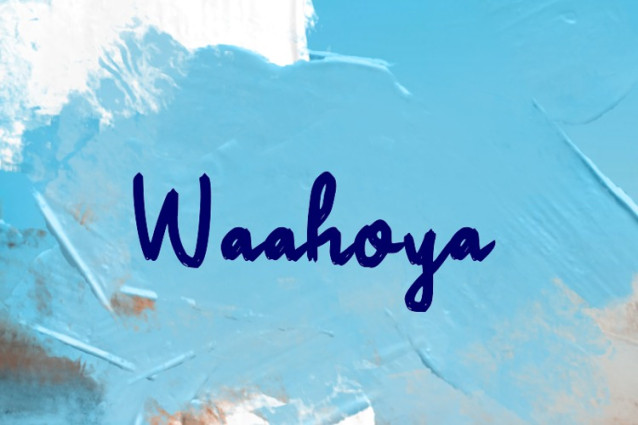
Waahoya Font
Waahoya Font, perfectly fit for branding, logo, wedding things, greeting cards, fashion, lookbook, marketing promotion, anytime you want to look fancy elegant but still casual.
Classification: Decorative Fonts, Modern Fonts